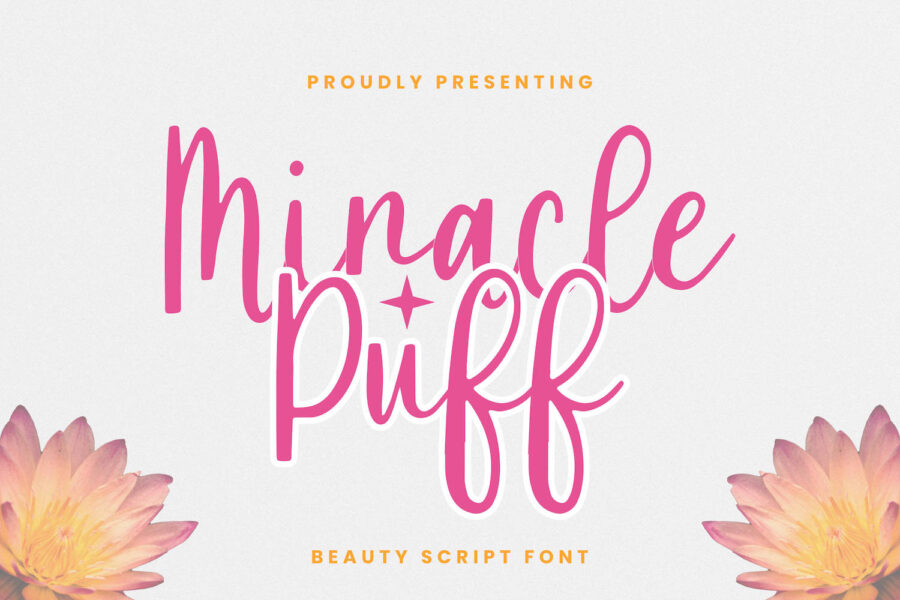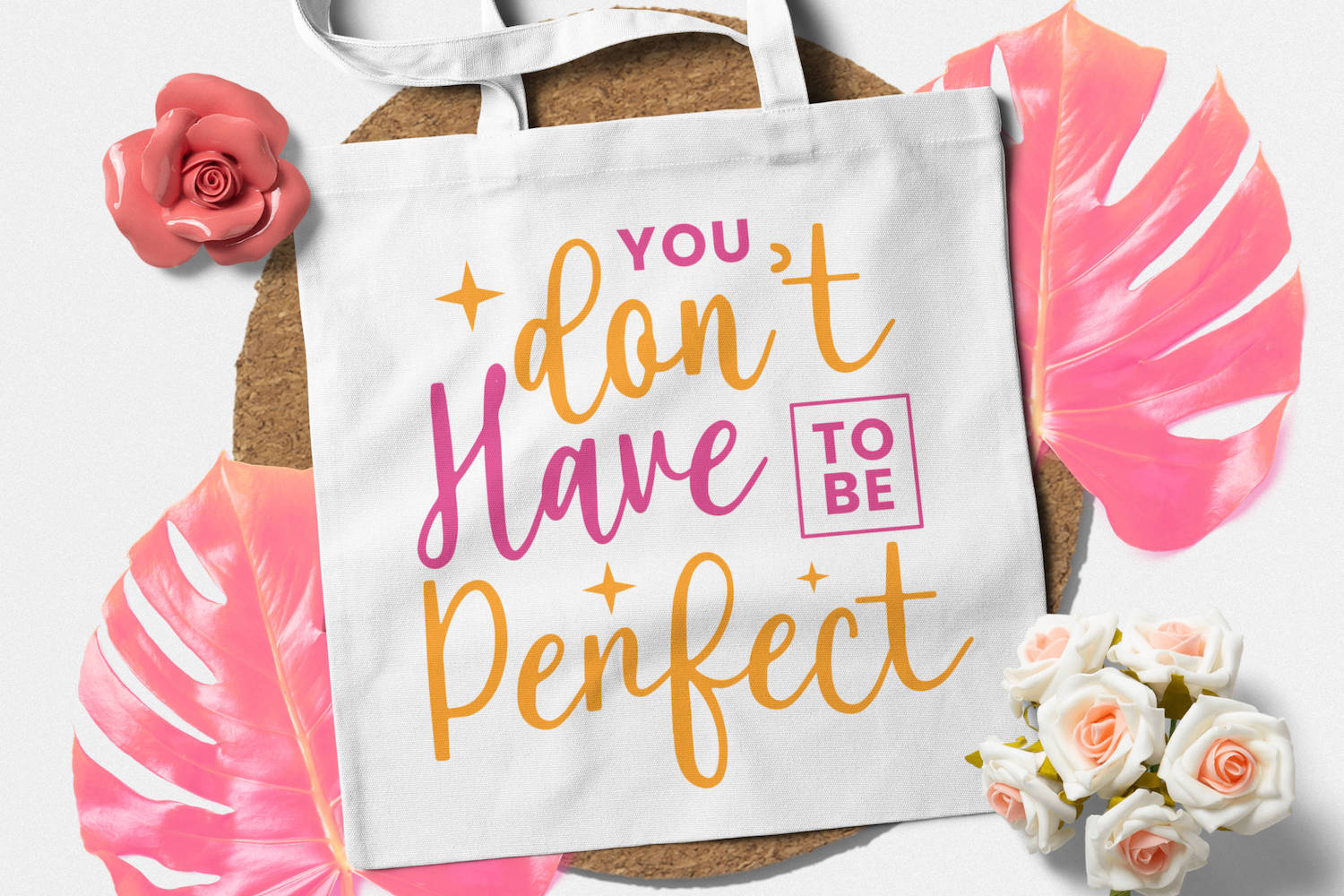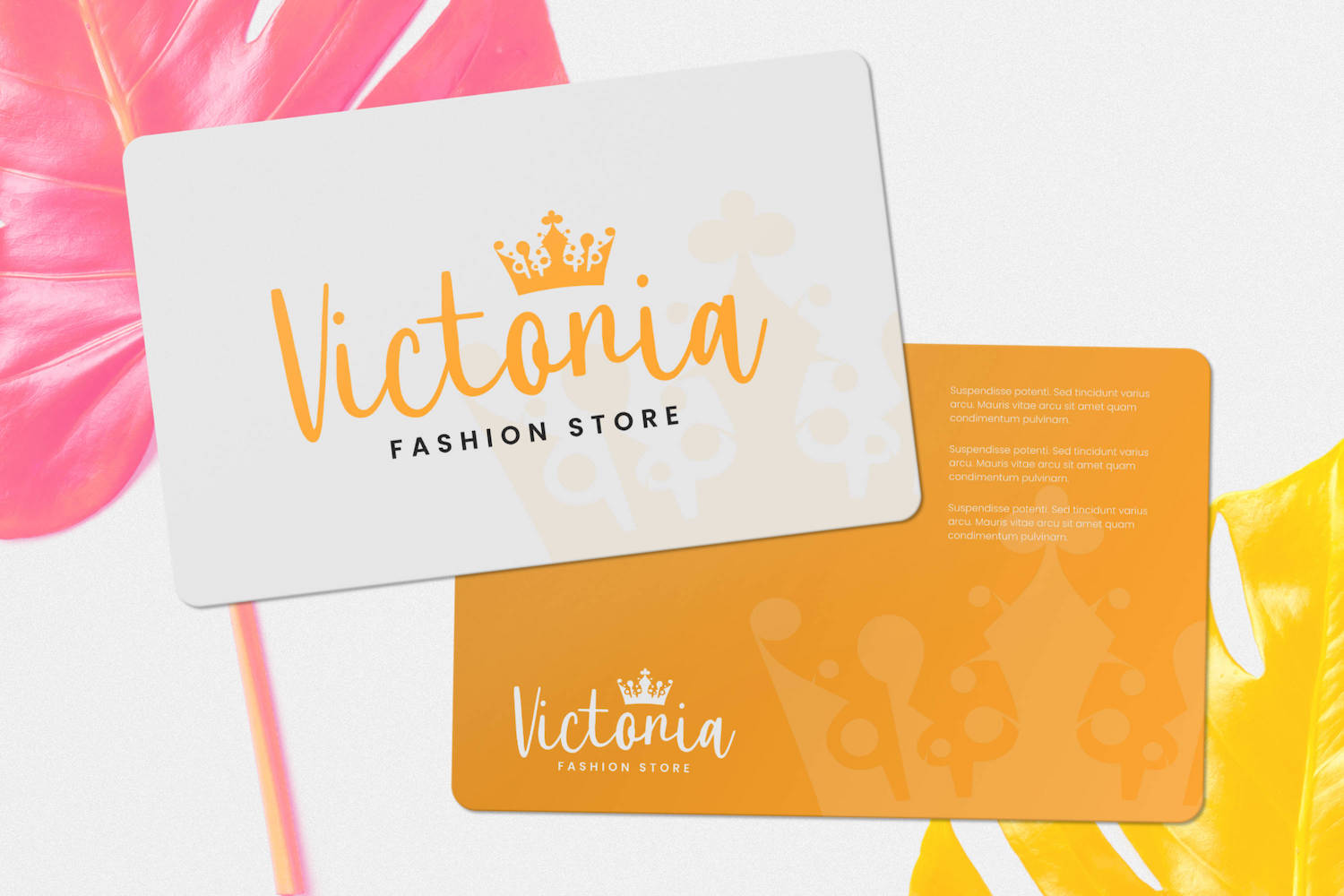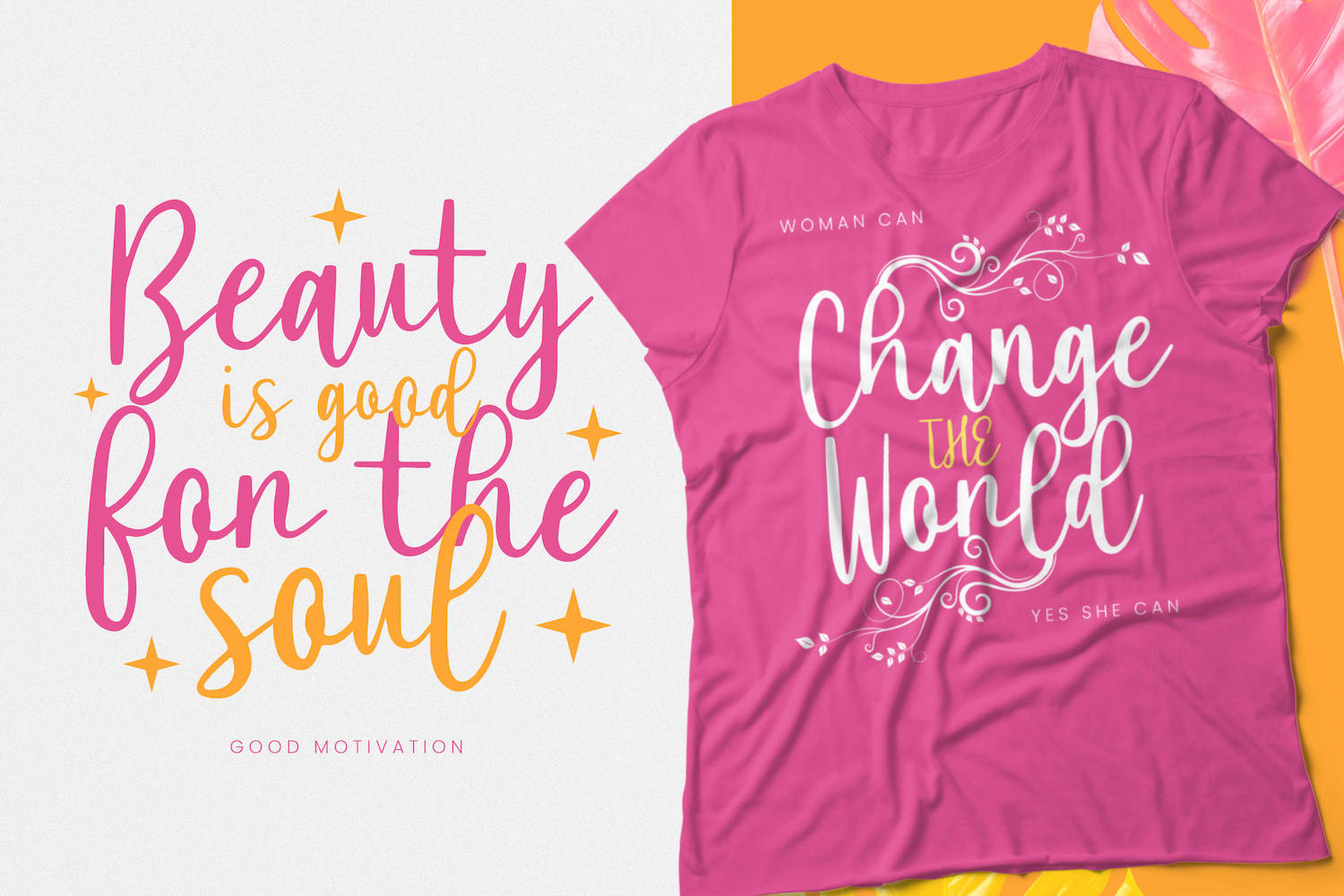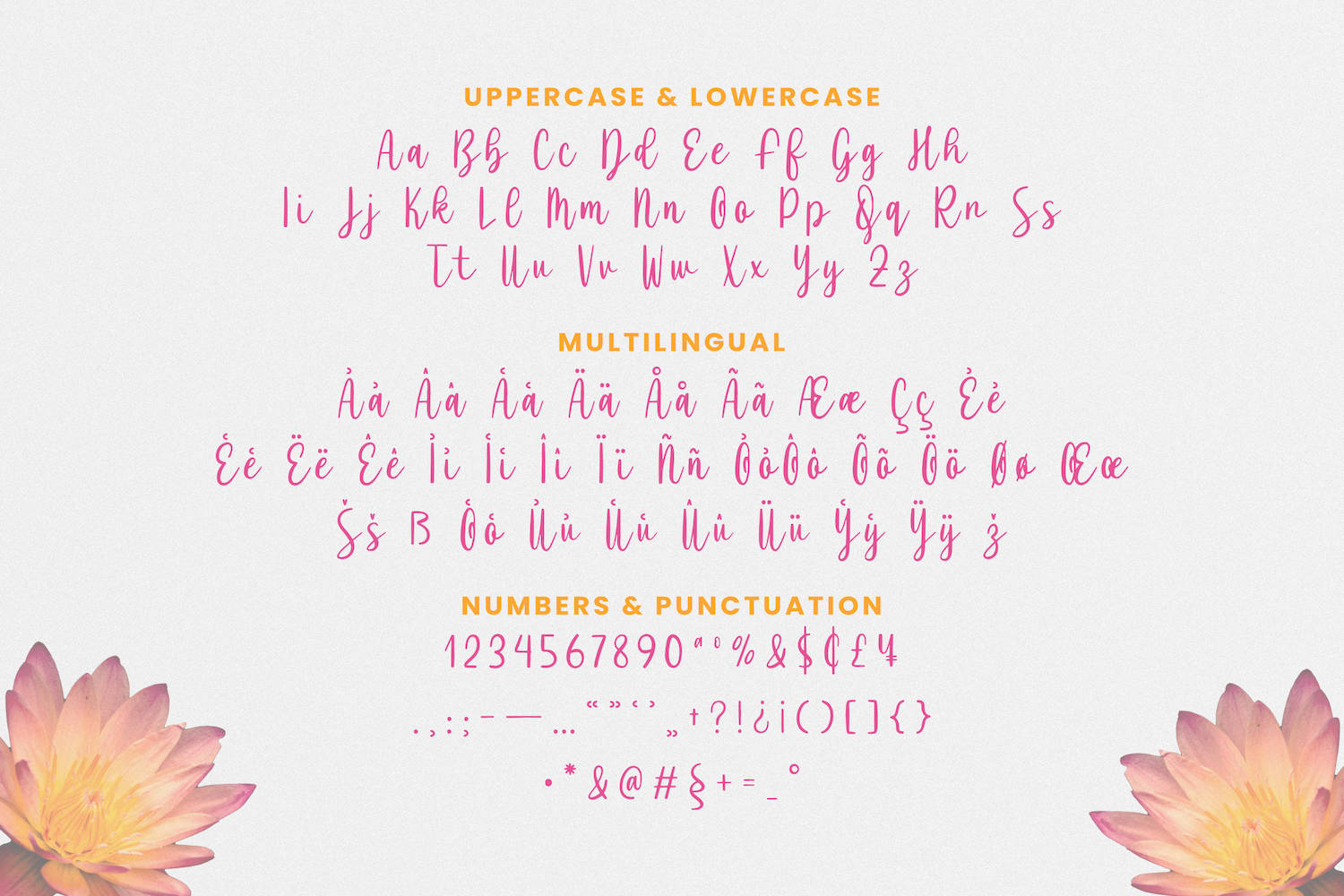
Miracle Puff is a charming beauty script font that radiates elegance with a playful twist. Its smooth, hand-lettered curves and feminine flair make it perfect for branding that requires a soft, personal touch. This typeface blends modern calligraphy with casual brushstroke vibes, ideal for quotes, cosmetic packaging, boutique signage, and social media content that aims to uplift and inspire.
With its full set of uppercase, lowercase, punctuation, multilingual accents, and ligatures, Miracle Puff ensures versatility across both print and digital mediums. Whether used for fashion logos, wedding invitations, or motivational designs, this script delivers warmth, energy, and a touch of whimsy that turns simple words into captivating visuals.
Miracle Puff